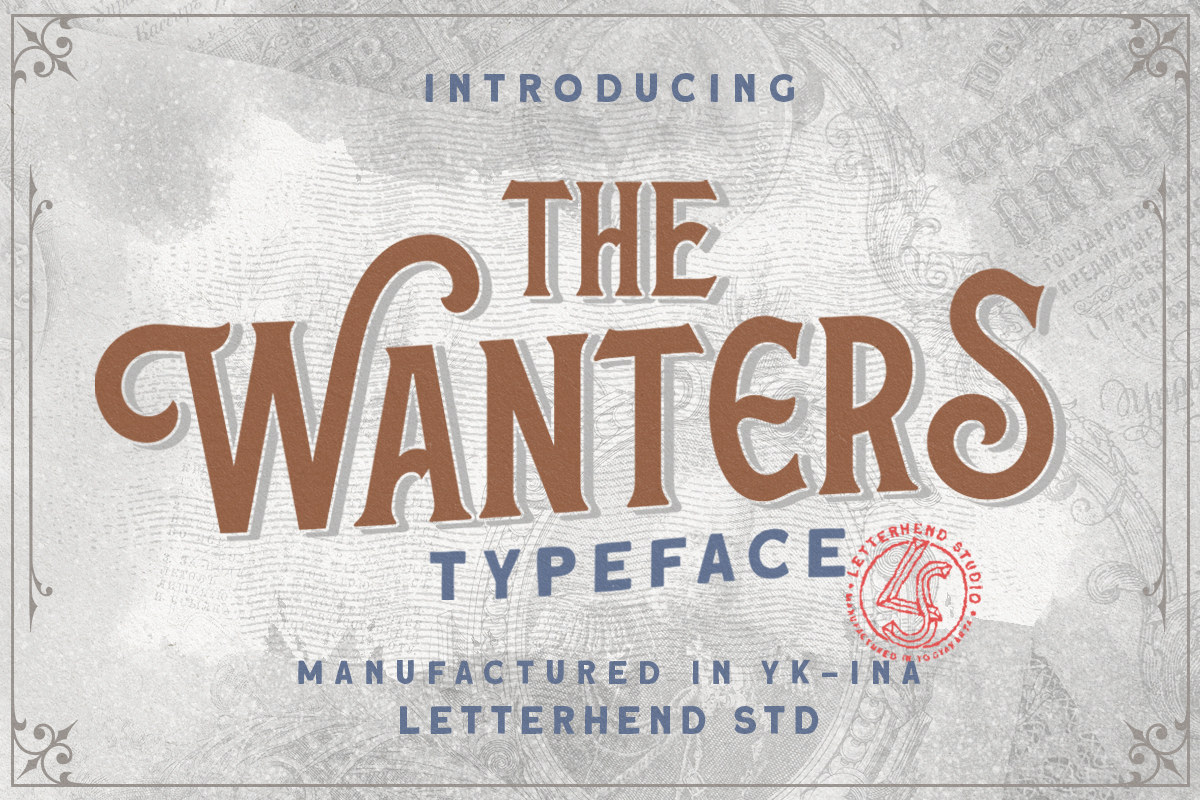
The Wanters Font
The Wanters Font is perfect for aspirational lifestyle blog headers, goal-setting app interfaces, motivational coaching materials, desire-driven marketing campaigns, ambitious startup branding, dream visualization platforms, aspiration-focused workshop graphics, luxury brand advertising, exclusive membership club signage, and high-end consumer product packaging. This aspirational typeface brings compelling energy to personal development services, luxury lifestyle brands, achievement-oriented educational programs, premium consumer products, and exclusive experience providers.
The Wanters Font is exciting because it captures the powerful psychology of desire and aspiration through its compelling letterforms that speak to human ambition and the pursuit of dreams. The font features confident characters with aspirational proportions and desire-driven details that evoke the energy of wanting something better, the motivation of reaching for goals, and the sophisticated appeal of luxury and exclusivity. Its distinctive construction demonstrates aspirational design with carefully crafted elements that create an immediate sense of desirability and motivational pull. The font's aspirational presence and desire-focused authenticity make it perfect for brands seeking to communicate luxury appeal, goal achievement, and the fulfillment of wants and desires in their visual communications.
The Wanters Font family includes various aspirational styles: Light, Regular, Medium, Bold, Black, Italic, Condensed, Extended, Display, Luxury, Desire, and Aspiration variants. Each family member maintains the core aspirational DNA while offering different levels of desirability for diverse goal-focused design applications. The comprehensive font collection ensures consistent aspirational branding across luxury campaigns, motivational products, and desire-driven communication materials.
Whether you're creating luxury brand identities, designing aspirational marketing materials, developing goal-focused website headers, or crafting desire-driven promotional campaigns, The Wanters Font delivers outstanding aspirational appeal and luxury authenticity. The font's distinctive compelling personality excels in luxury logos, aspirational packaging design, motivational applications, and premium projects where desire fulfillment and aspirational appeal are essential.